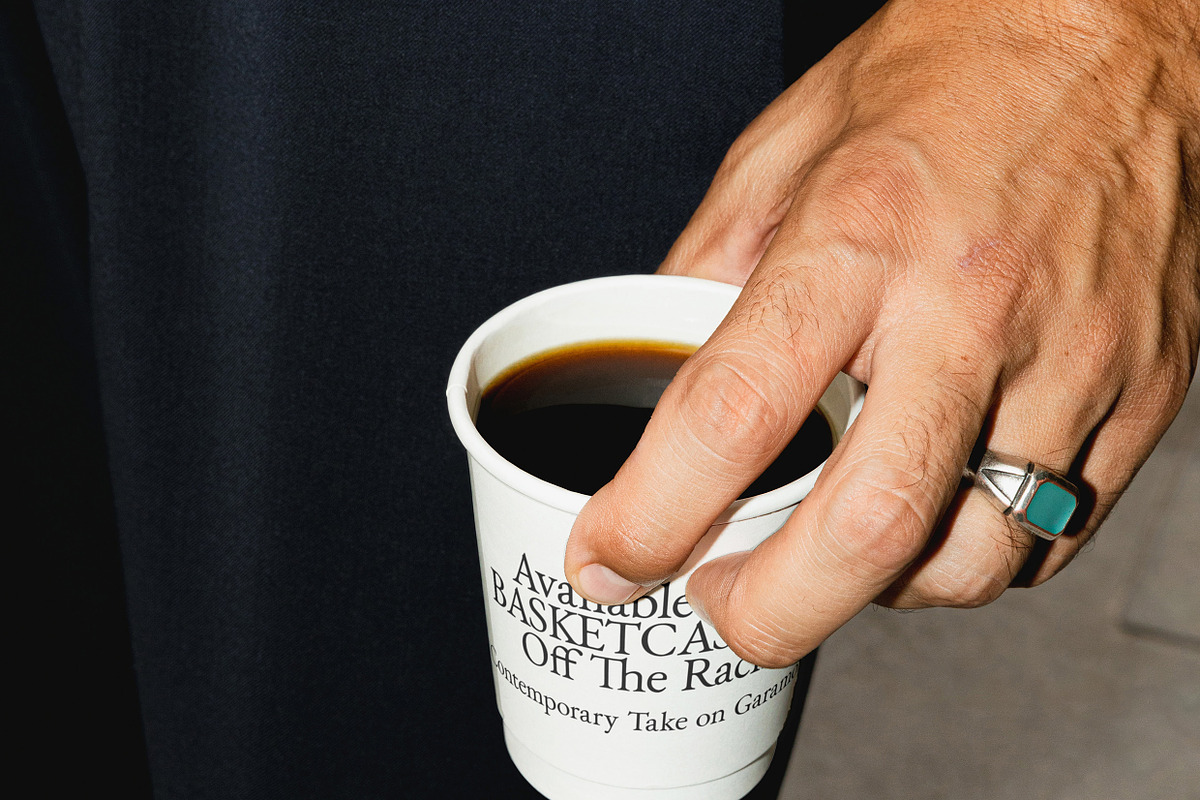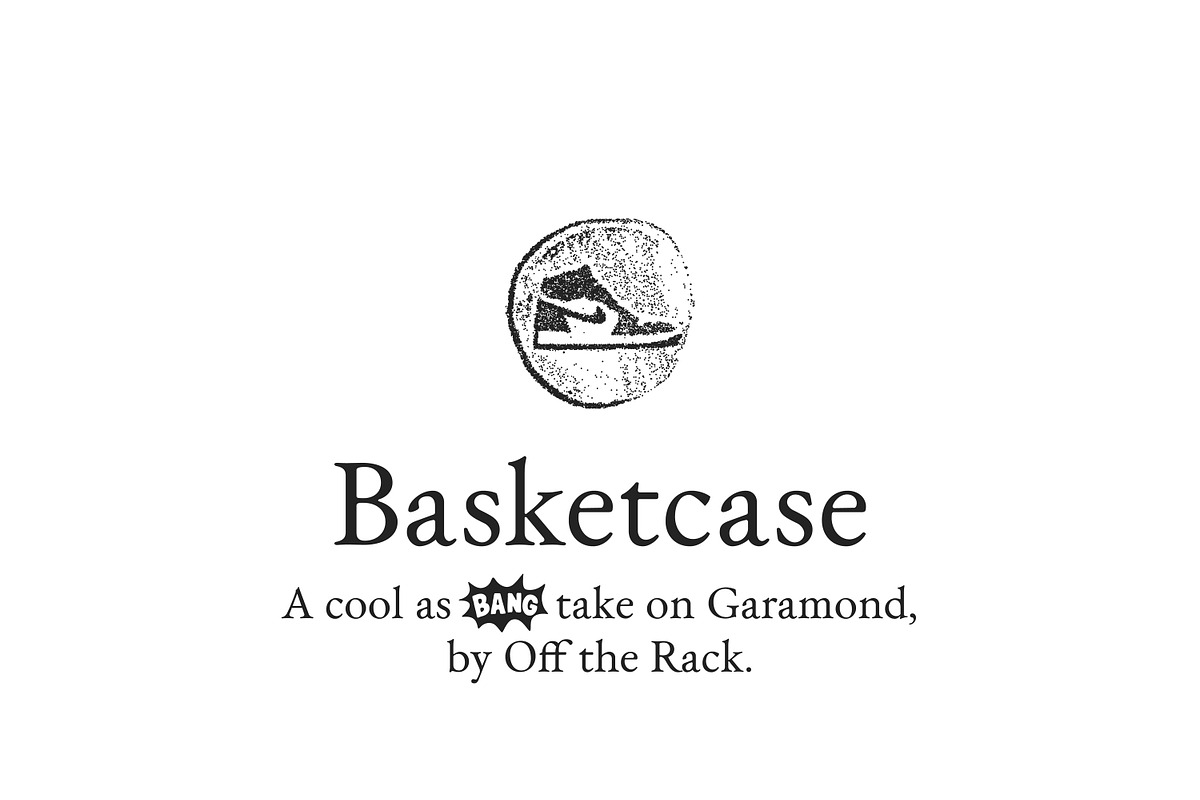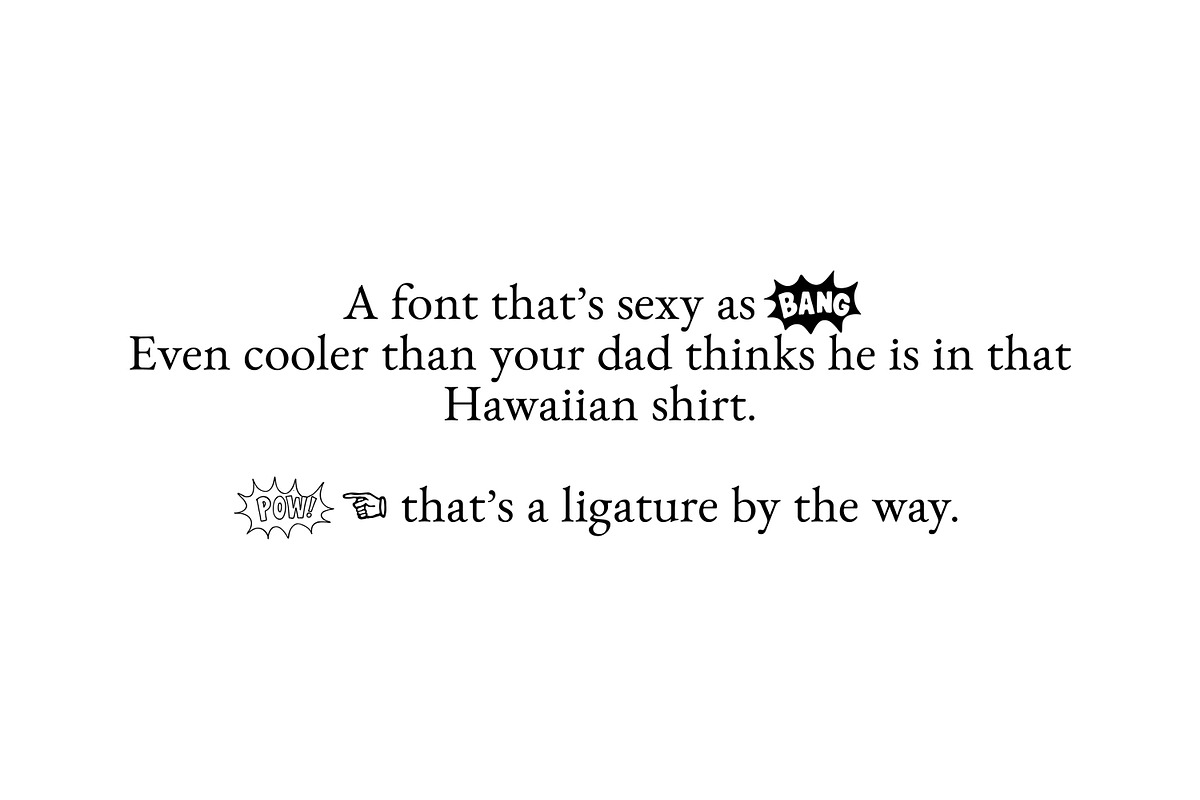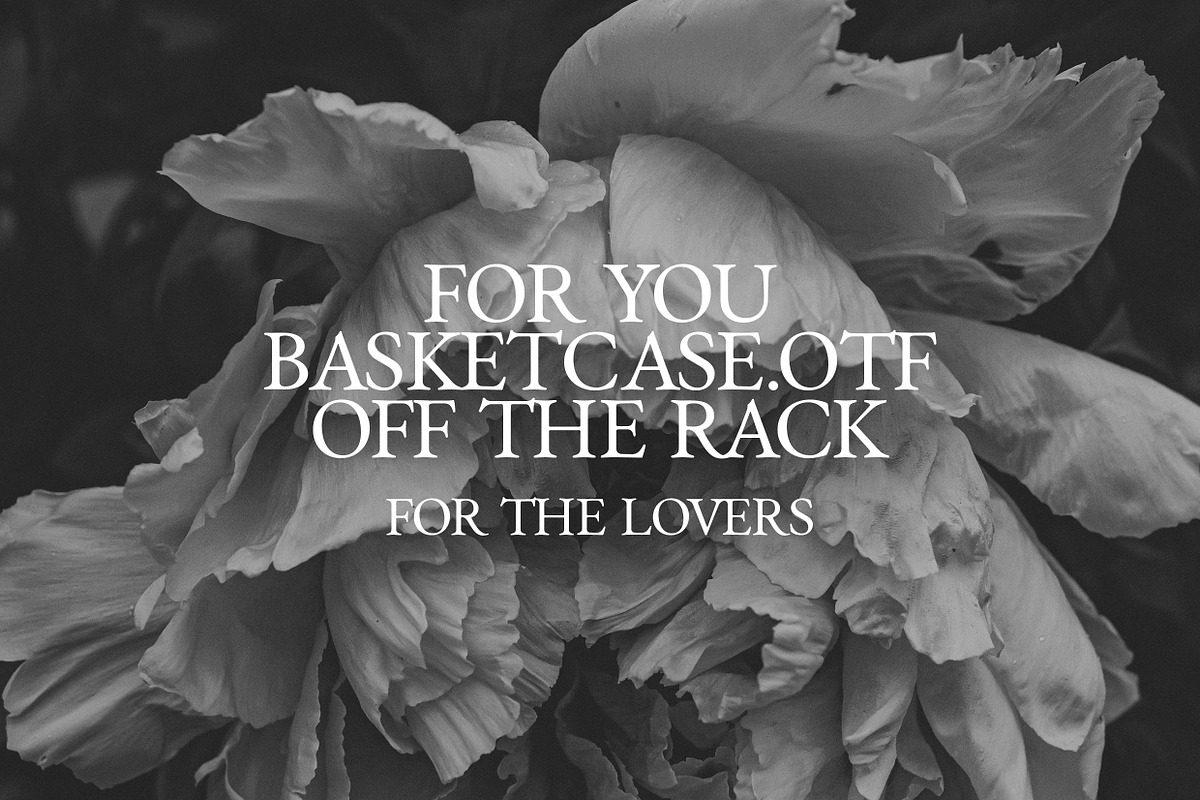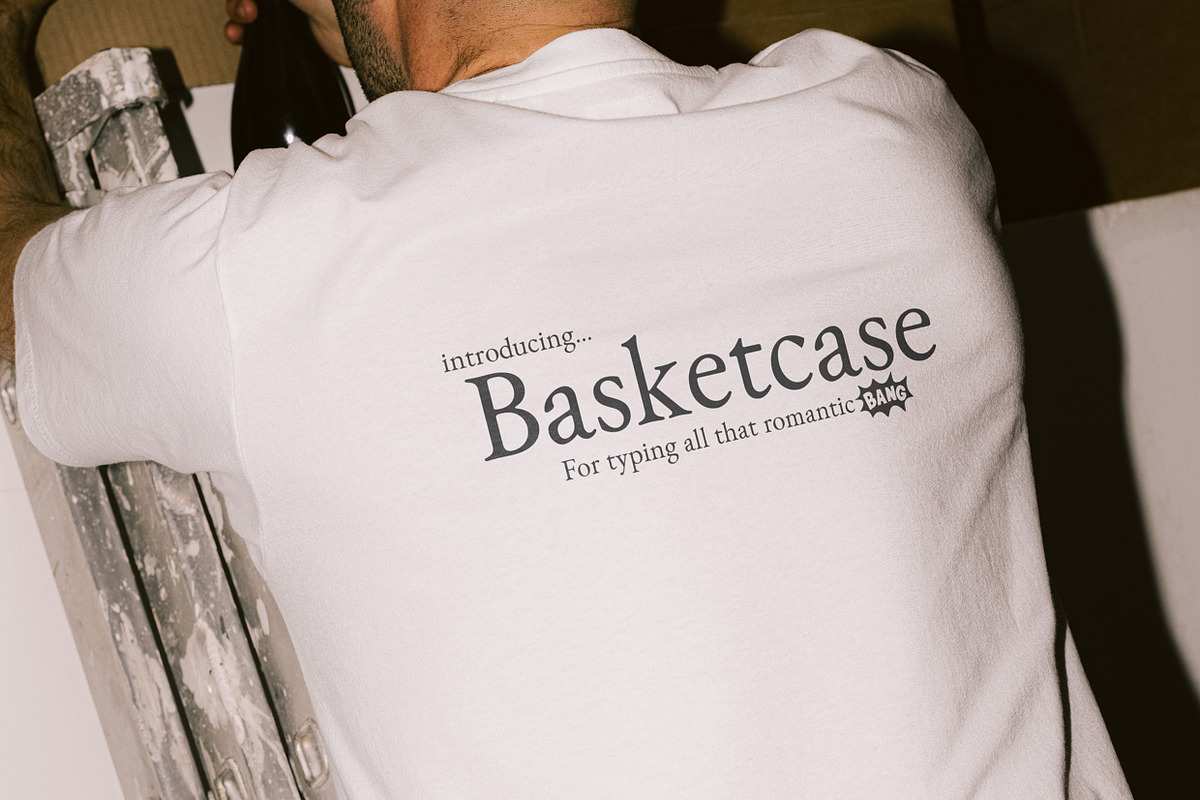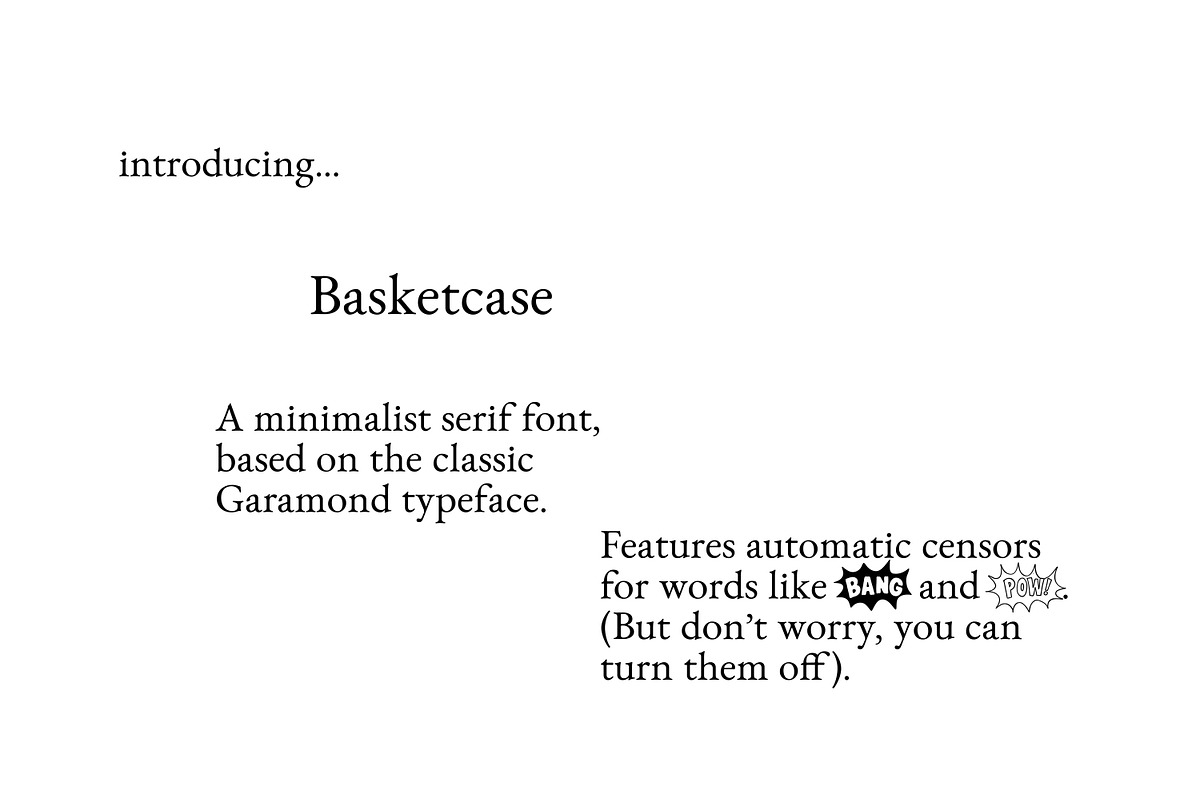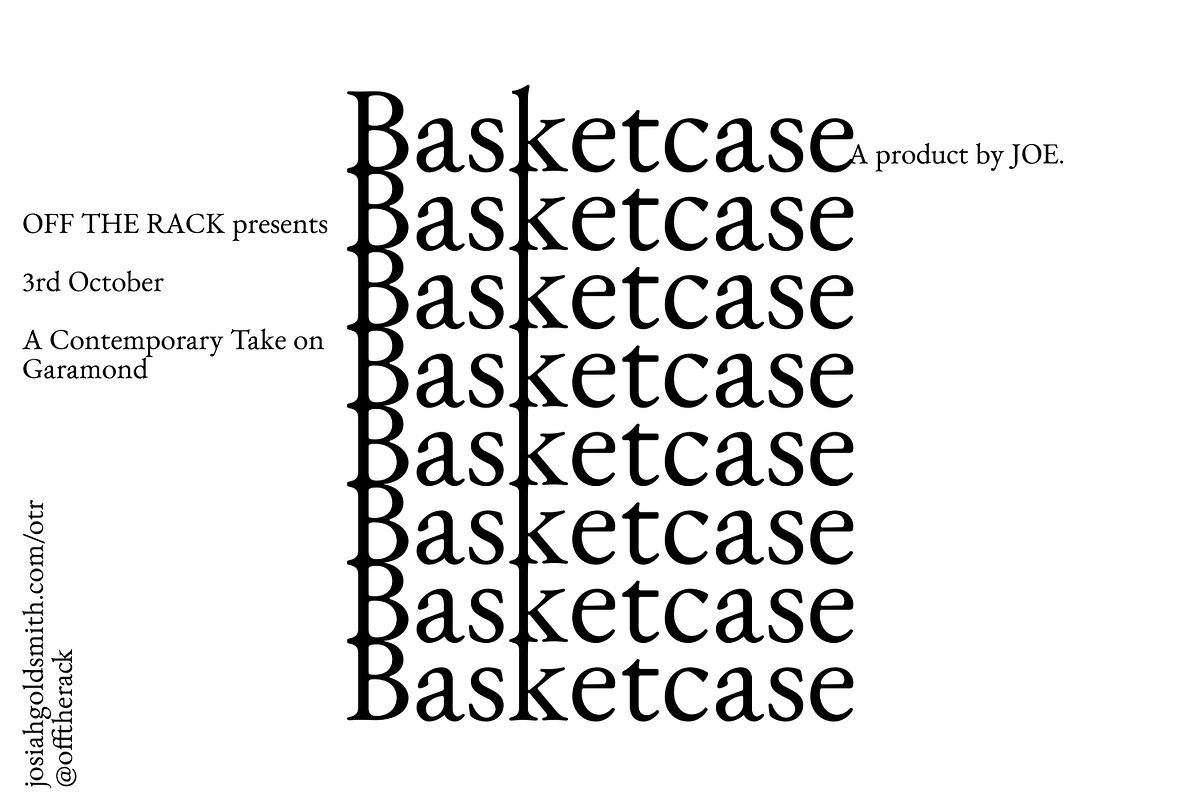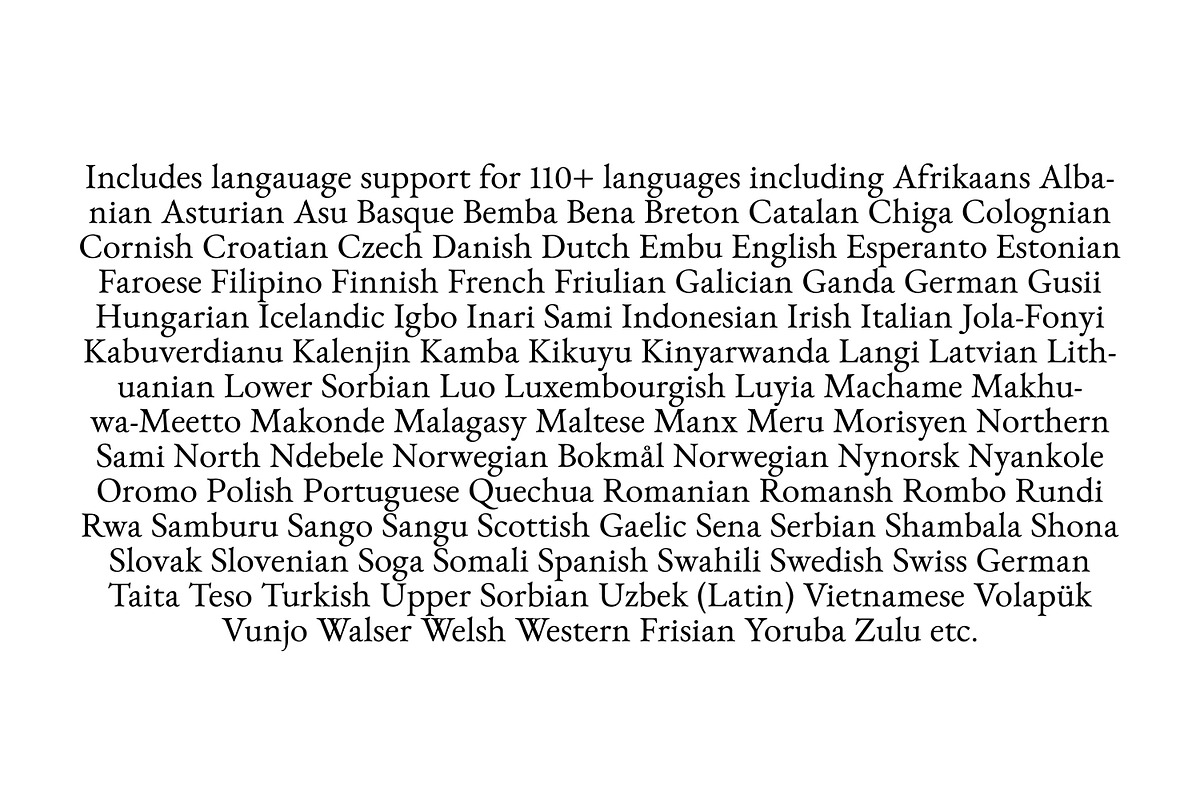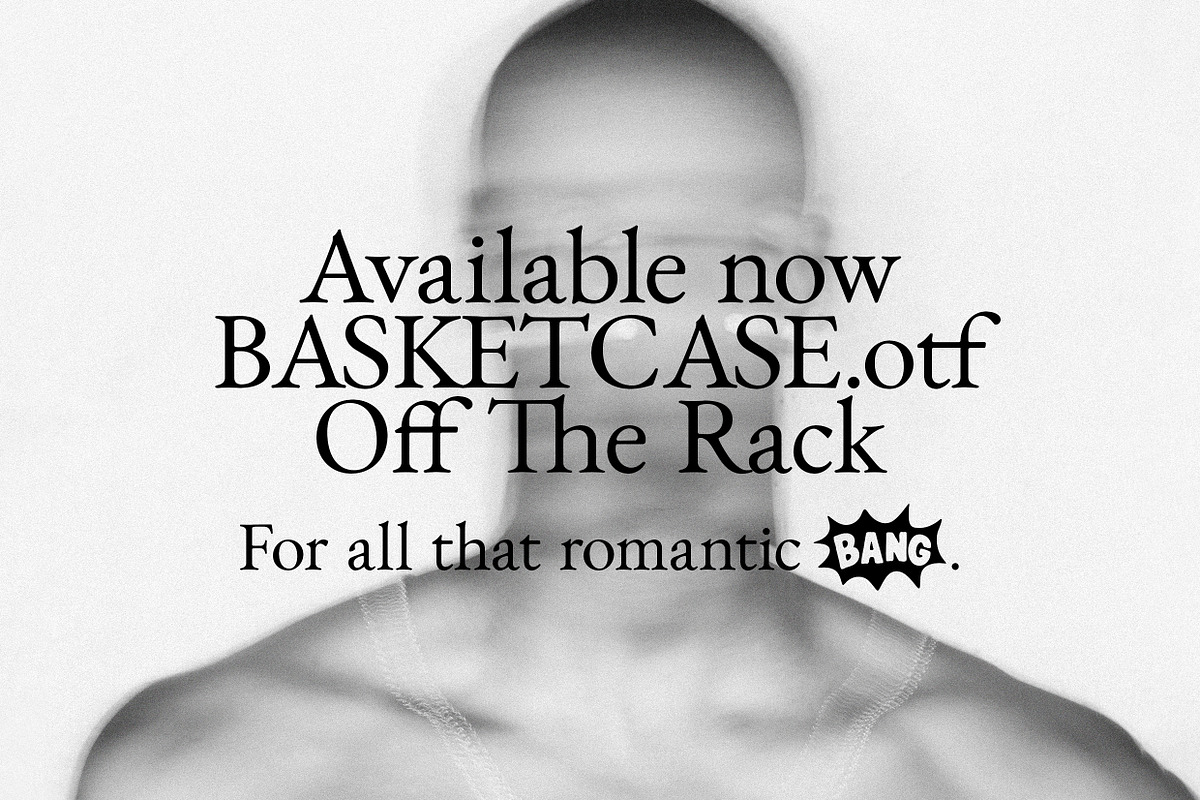
Basketcase - Modern Serif Font
✨Basketcase✨ by Off The Rack.
A font as sexy as your dad thinks he is in that Hawaiian shirt, Basketcase grew out of a love for the classic Garamond typeface, updated for a modern audience.
Designed with contemporary websites and branding in mind, Basketcase features digital-friendly serifs, larger x-heights for improved readability at small display sizes, and modern letter forms.
- Nearly 1000 glyphs
- Support for over 100 languages
- 19 opentype features, including cartoon-ish censors for your favourite 4-letter words 🫢
- All the important ligatures, plus about a dozen more
- Various figures, fractions, etc.
- Extensive punctuation
- Small Caps